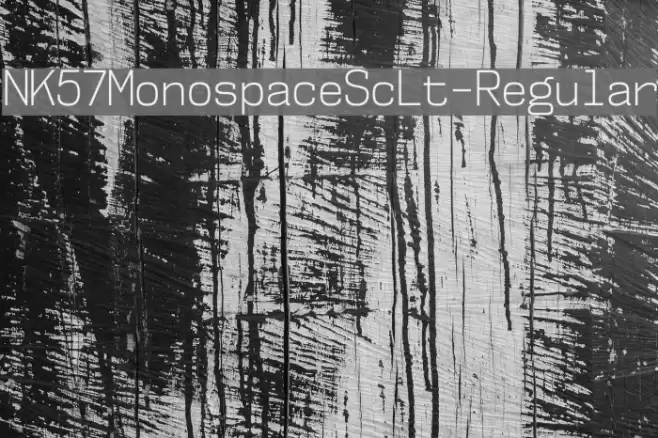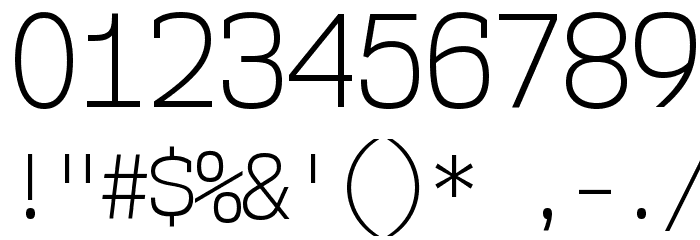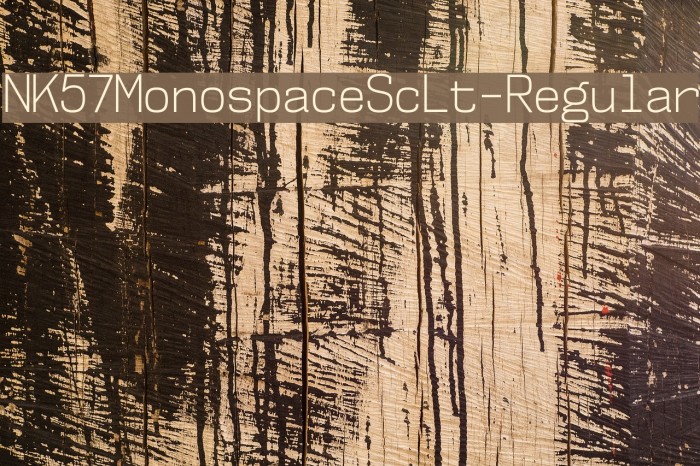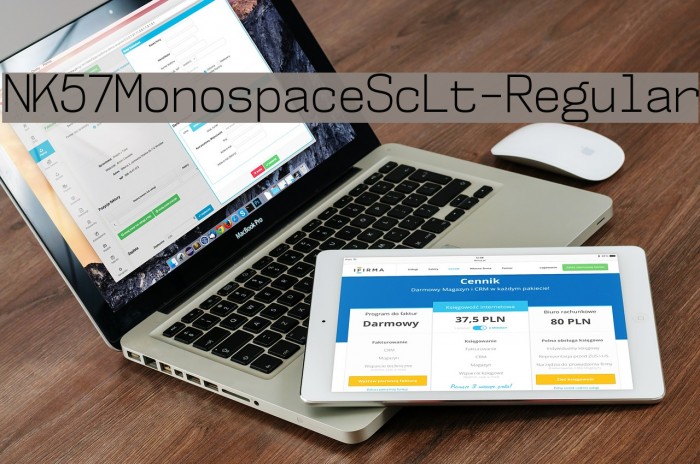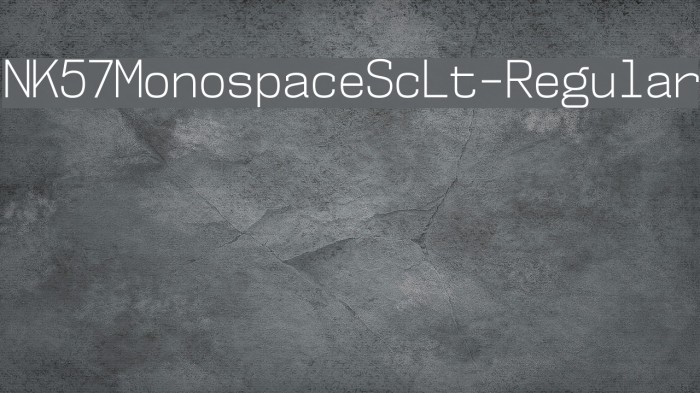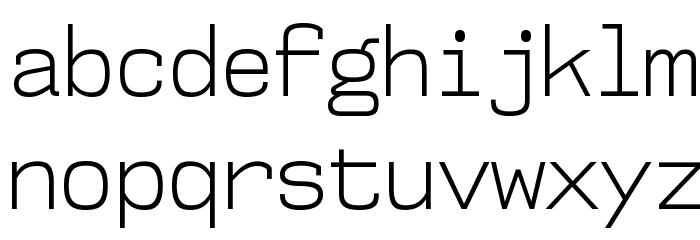
NK57MonospaceScLt-Regular Font
NK57MonospaceScLt-Regular Description
This font features a clean and precise design, characterized by its monospaced structure where each character occupies the same amount of horizontal space. The strokes are consistent and uniform, providing a balanced and orderly appearance. The font has a modern and technical feel, suitable for coding and technical documentation. Its geometric shapes and straight lines contribute to its legibility and clarity, making it ideal for environments where readability is crucial. The font's simplicity and lack of decorative elements emphasize functionality over style.
A clean, monospaced font with a modern and technical design from Basic fonts.
- Proposed Projects: Ideal for coding, technical documentation, and any project requiring a clear and uniform typeface.
- Weight: Light
- Use Case: Coding, Technical documentation
- Is Fixed Pitch: Yes